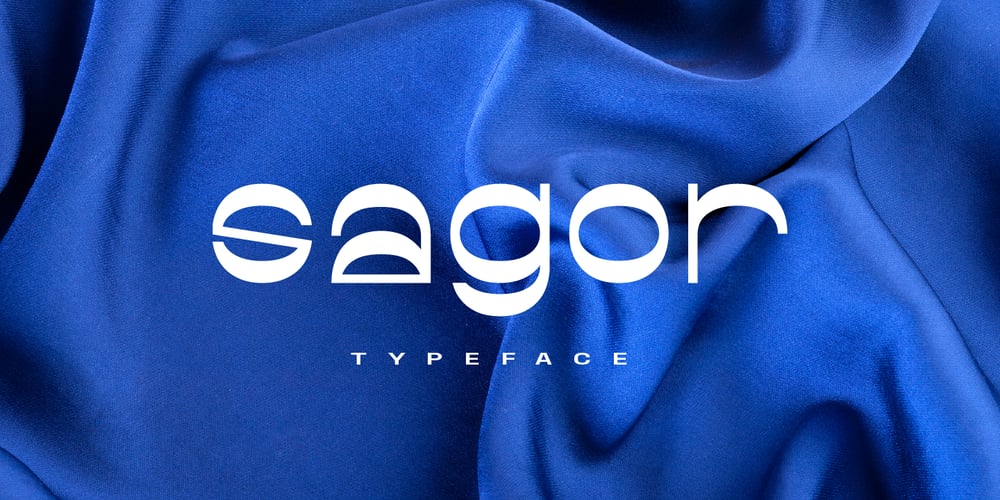
Sagor Font Family was designed by Cihangir Öziş and published by Cihangir Öziş. Sagor contains 1 styles and family package options. Sagor, designed by Cihangir Öziş in 2019, is a modern font that adds a different flavour to your works with its cool look and unique details. Sagor is suitable for fashion, branding, packaging and editorial uses. It is an excellent choice for short sentences, big hero titles, unique logo fonts, in particular. It can also be used to add a new look to historic design structures. Sagor is particularly elegant and assertive, especially in lowercase letters. Features: Latin Basic Latin Western European South Eastern European Uppercase Lowercase Numbers – Decimal Digits Standart Punctuation Standart Ligatures Alternate for “a” Letter Symbols – Currency, Basic Math, Arrows